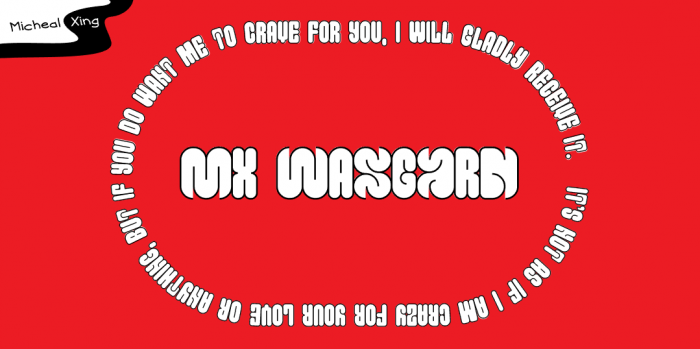
• Inspired by Punk-esque, spray-painted, hip hop genre types, MX Wasgard is a take on that, using two varying sets of bubbly typefaces that can be merged together to create an overall dynamic type arrangement.
Congratulations! FontStruct Staff have deemed your FontStruction worthy of special mention. “MX Wasgard” is now a Top Pick.
Quite original work, especially the capitals. I would make them a separate typeface. Congratulations for the TP. 10/10
The upper case is really awesome and original!
@Frodo7 and @laynecom: Thanks so much! When I was initially working on the capitals, the small alphabet set just happened to came about while I was messing with the bricks. Thought they pair very well together, so I just left them in this manner.